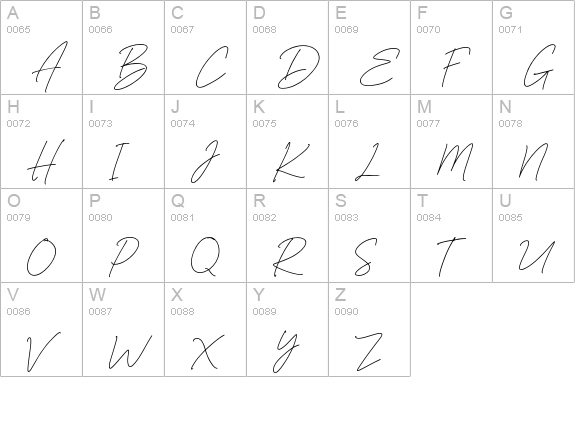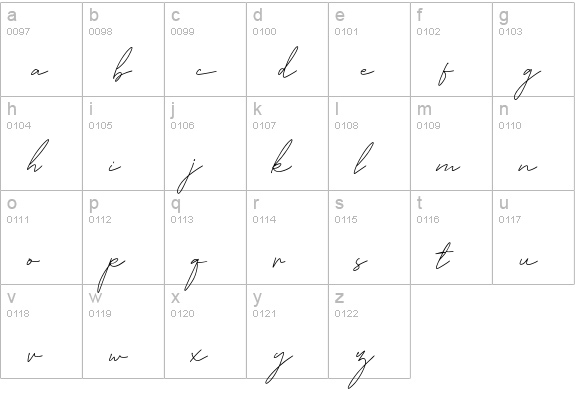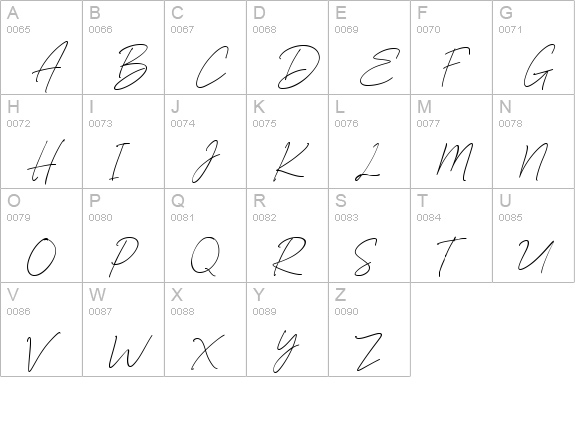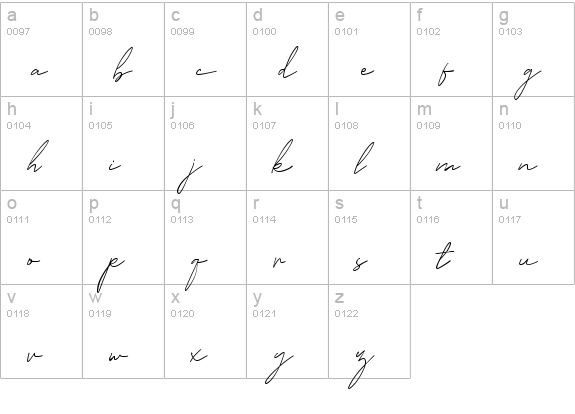
angelic bonques script Font Details
angelic bonques script is a demo font in the Fancy > Feminine category, designed by craftsupplyco. It has been downloaded 21 times and is available for Windows, Mac and Linux.
The Angelic Bonques Script Font is a stunningly elegant and sophisticated typeface that exudes a sense of heavenly grace and beauty. Its delicate strokes and intricate details give it a truly angelic quality, making it perfect for adding a touch of ethereal charm to your design projects.
This exquisite font features flowing lines and graceful curves that create a sense of movement and fluidity, making it ideal for wedding invitations, greeting cards, branding materials, and more. The Angelic Bonques Script Font strikes the perfect balance between classic elegance and modern flair, making it a versatile choice for a wide range of design applications.